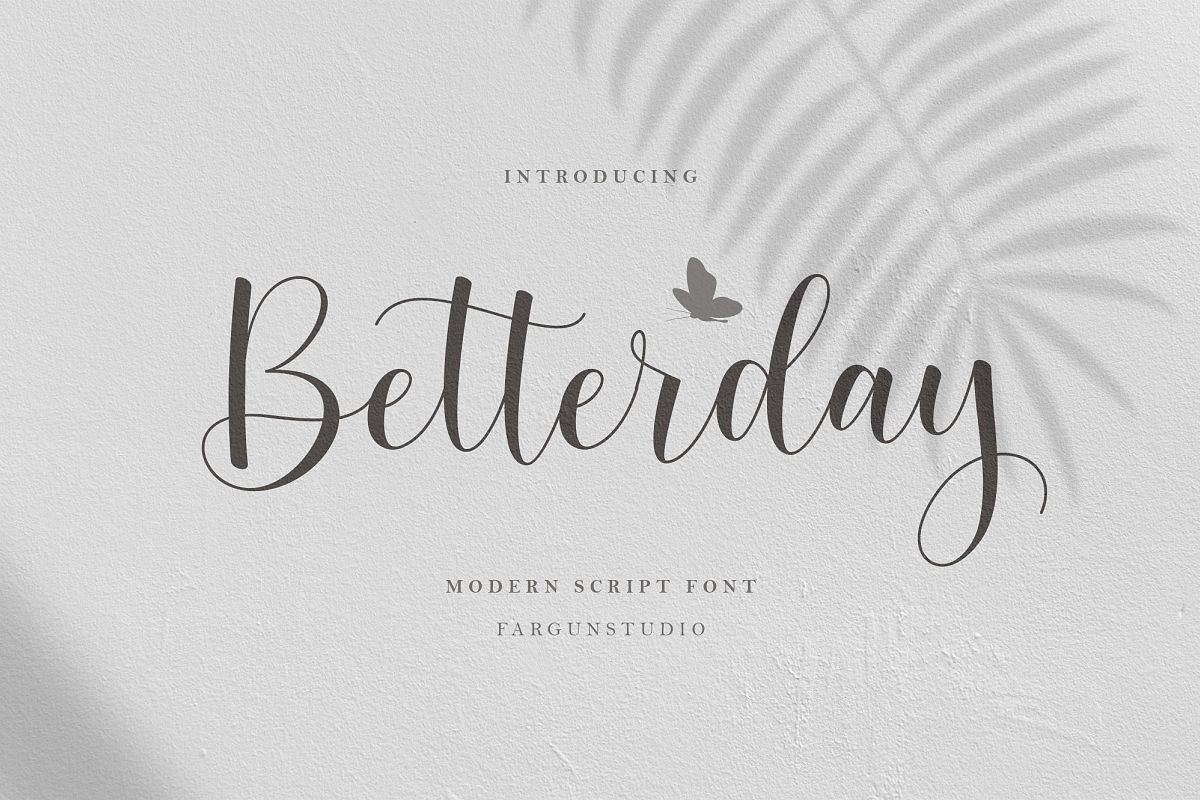
Betterday Script
Introducing!
Betterday Script - a new fresh & modern script
with a handmade calligraphy style, decorative characters and a dancing
baseline! So beautiful on invitation like greeting cards, branding
materials, business cards, quotes, posters, and more design concept!